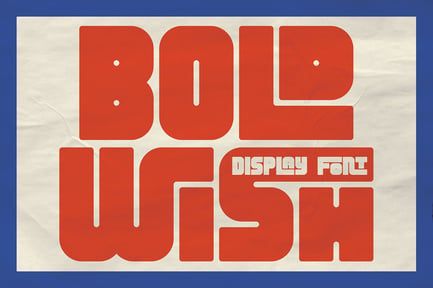
Bold Wish – Display Font
Unique, vintage, retro, rough, rounded & bold sans serif font. Comes with multilingual support & ligatures – great for your new logo or branding project.
* 2 font styles – regular & rough
* Multilingual support & ligatures
* Great for retro or vintage style branding projects